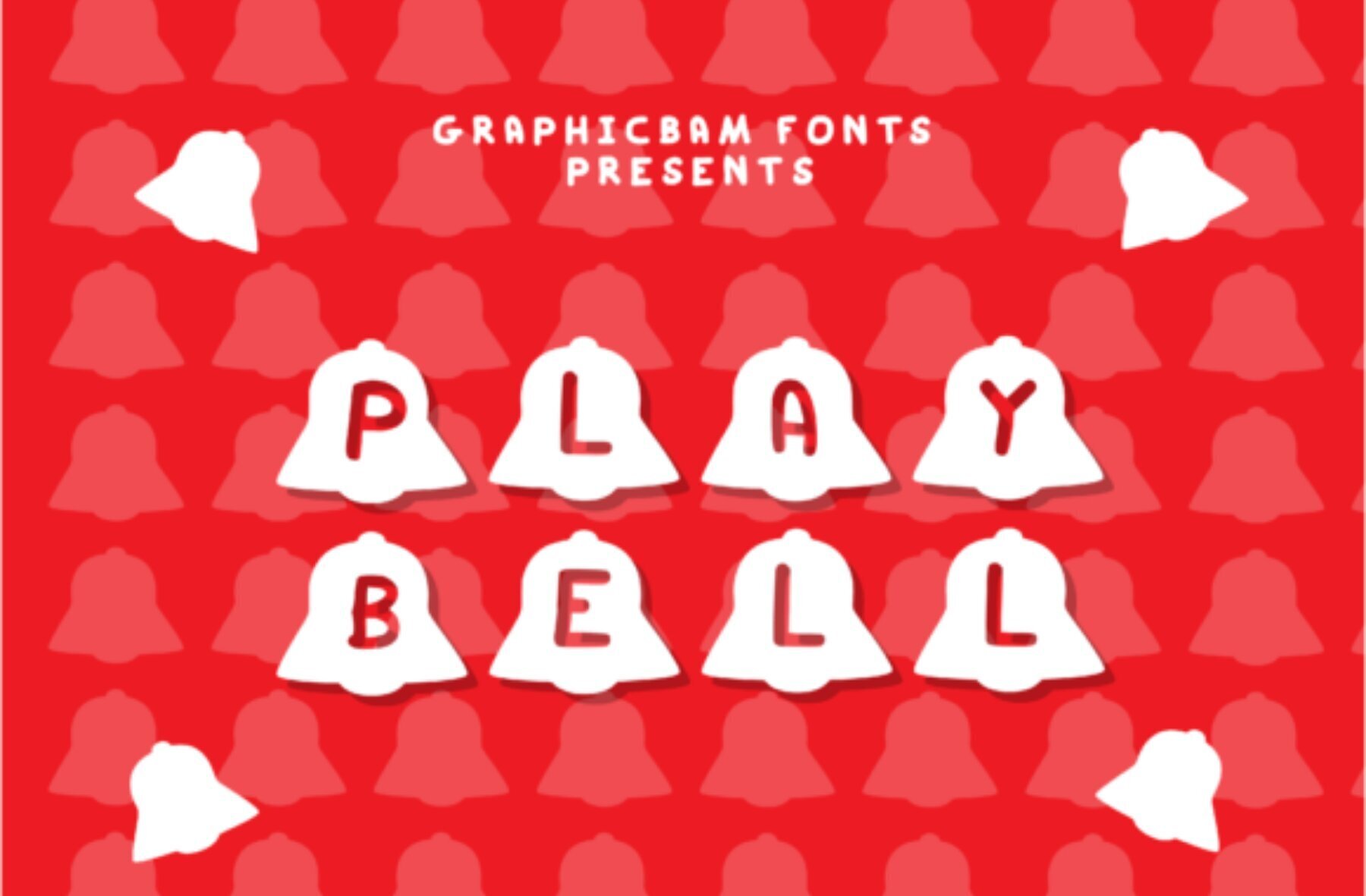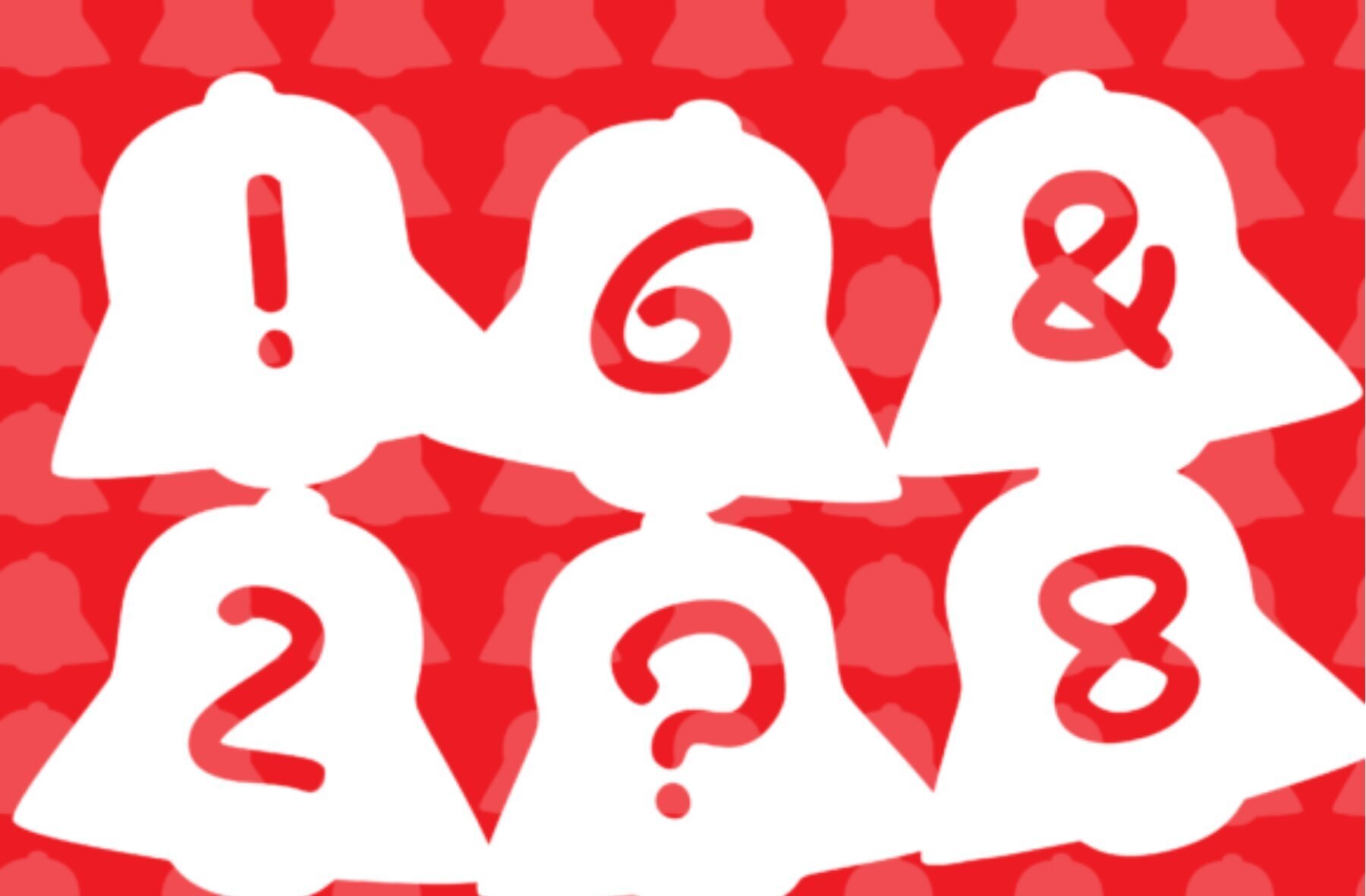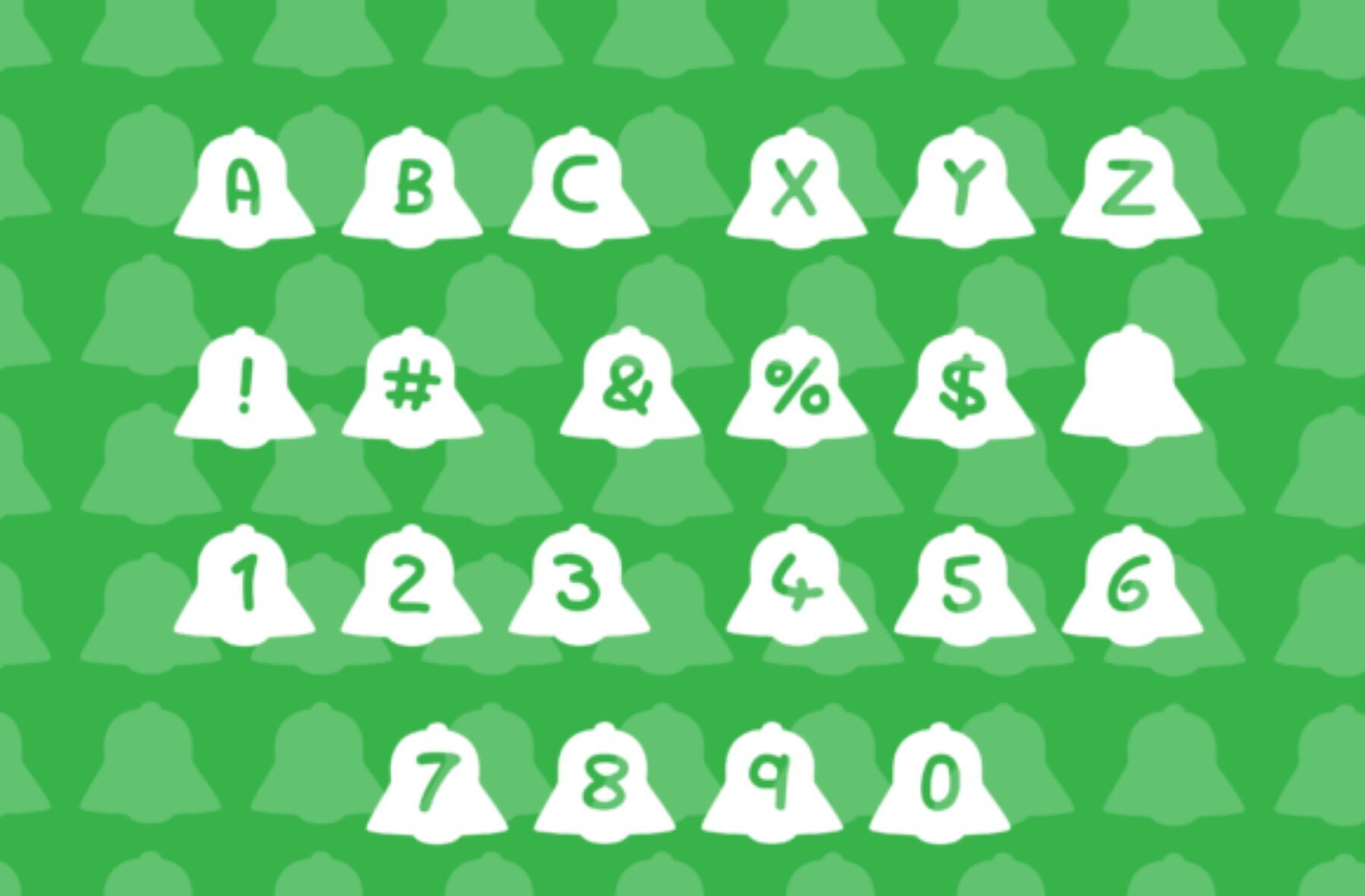
Play Bell Font
Play Bell Regular
Elevate your creative projects with Play Bell, a stylish and uniquely designed decorative font. Perfect for a variety of applications, from crafting and digital design to presentations and greeting cards, this font adds a distinctive touch to any endeavor. Let your imagination run wild with Play Bell's creativity, making each project a standout in its own right.Play Bell: A Decorative Font Delight
Features of Play Bell